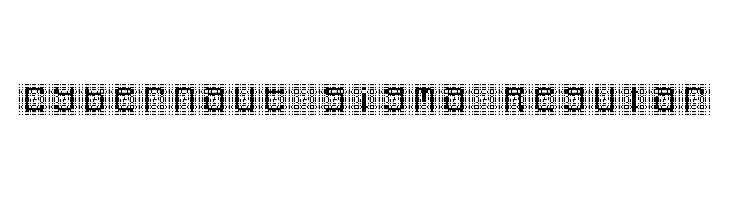
( Pixel Kitchen )
A futuristic, pixelated font with a digital, cybernetic style.
( Pixel Kitchen )
Intricate, decorative font with a cybernetic, geometric design.
( Pixel Kitchen )
A futuristic, grid-based font with a digital, pixelated appearance.
( Pixel Kitchen )
A bold, geometric font with an architectural and futuristic style.
( Pixel Kitchen )
A modern, dotted font with a playful and decorative style.
( Pixel Kitchen )
A segmented, digital-style font inspired by classic LCD displays.
( Pixel Kitchen )
A dotted, digital-style font with a modern, technological appearance.
( Pixel Kitchen )
A bold, geometric font with sharp angles and a modern aesthetic.
( Pixel Kitchen )
A futuristic, geometric font with intricate line patterns and a digital aesthetic.
( Pixel Kitchen )
A decorative font with maze-like, geometric patterns in each character.